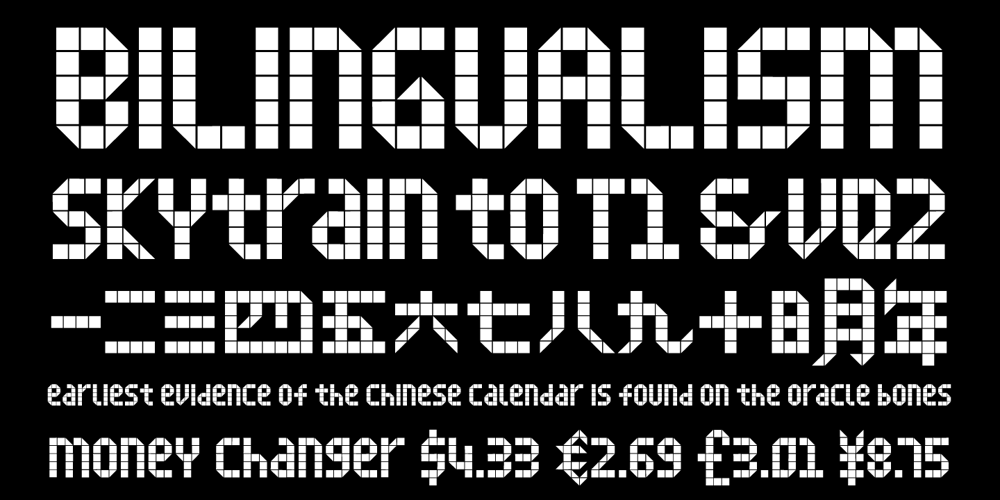
Simple
Simple font
Simple Font Family was designed by published by Winnie Tan. Simple contains 1 styles and family package options. Simple – The Bilingual Font. The process of Simple began with the usual alphabets followed by a series of icons and soon it was an avalanche of Chinese characters. The pool of proposed Chinese characters were loosely determined by the needs of a lunar calender. In a nutshell, Simple is a single-weight, minimal, grid-based Sans-serif display. Prudent with details and sturdy in form, the geometrically-driven structure marks the foundation of a cross-cultural assortment of Latin alphabets, Chinese characters and thematic icons. After months of extensive typesetting, Simple is also realized to be well-catered for use in graphical information design in games and tournaments, logotypes, advertisements and headlines. http://www.behance.net/gallery/Simple/847905